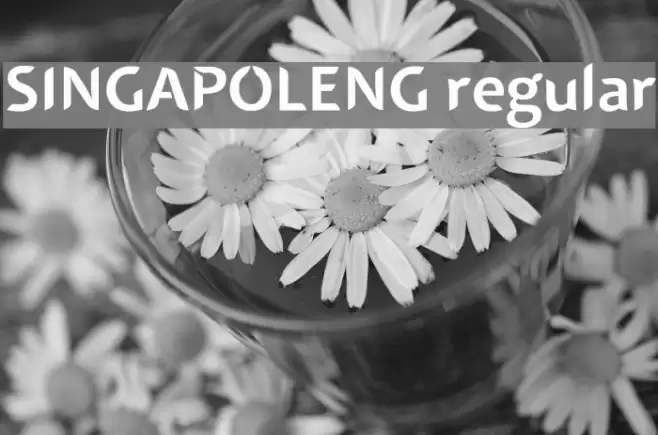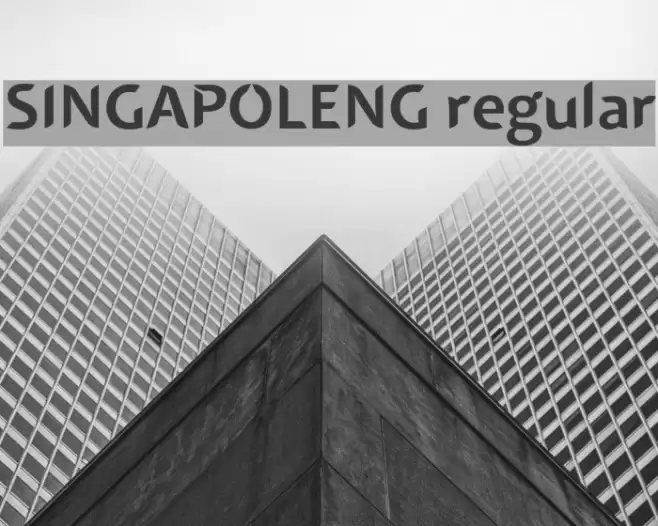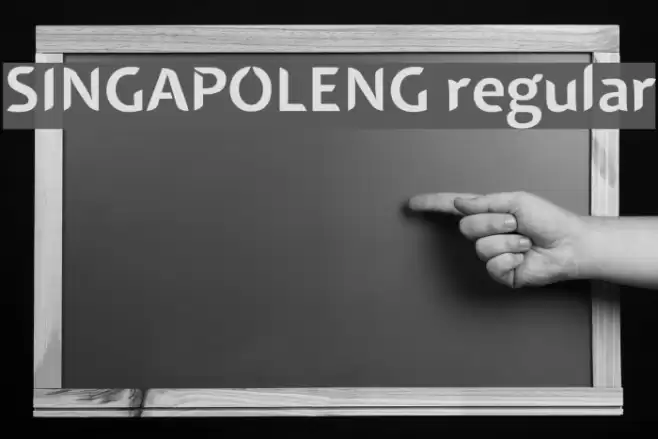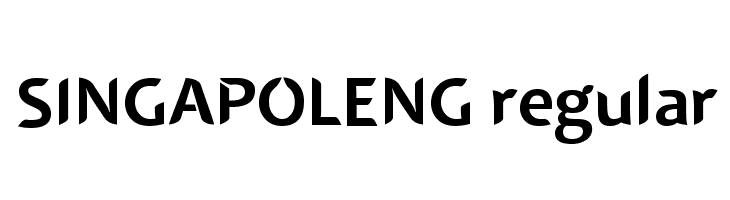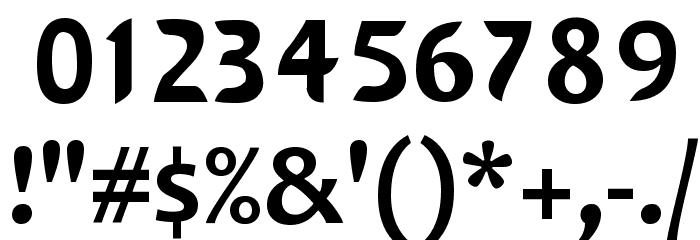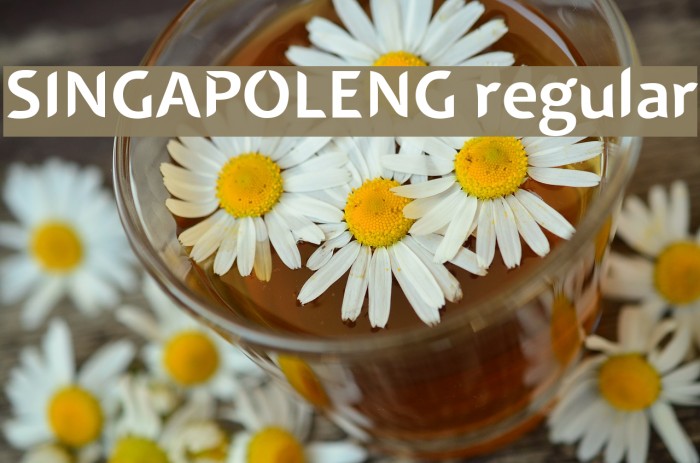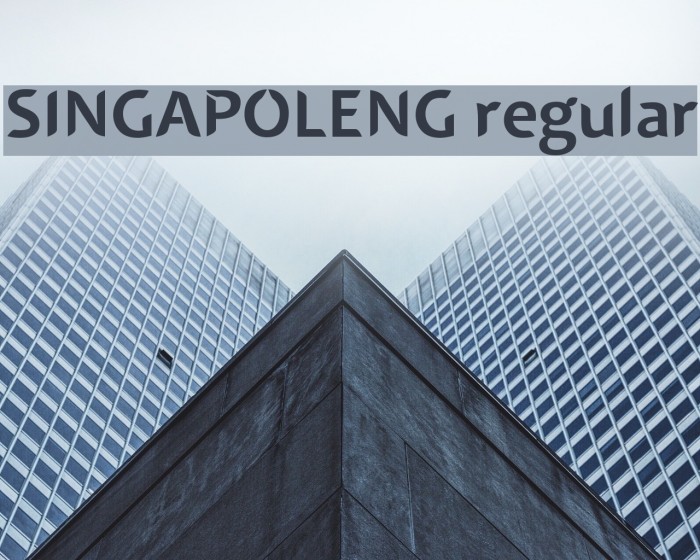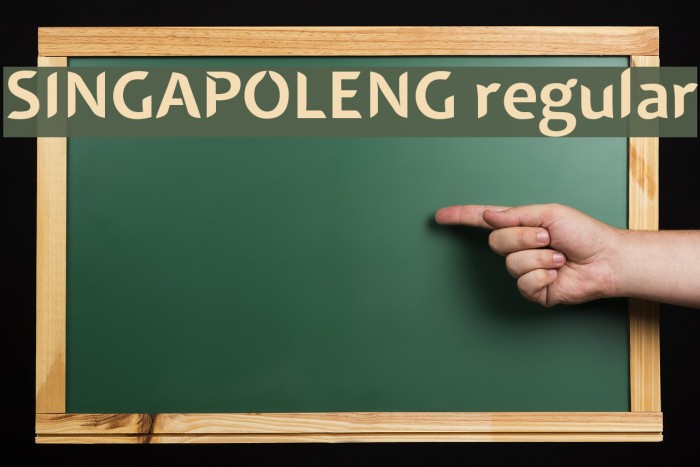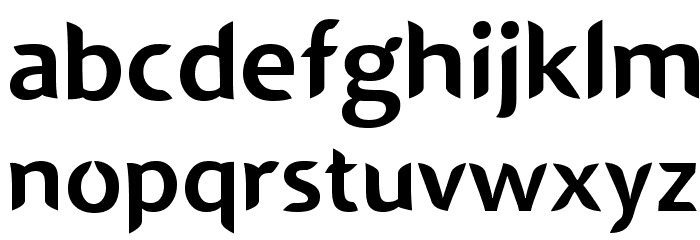
SINGAPOLENG regular Font
SINGAPOLENG regular Description
This font features a bold and dynamic style with a modern flair. The characters are slightly condensed, giving it a compact appearance while maintaining readability. The uppercase letters have a strong presence with sharp angles and clean lines, while the lowercase letters offer a softer, more rounded look. The numerals are consistent with the overall style, providing a cohesive appearance. Special characters are well-integrated, ensuring versatility in various design contexts. The font's high contrast between thick and thin strokes adds to its visual impact, making it suitable for attention-grabbing headlines and titles.
A bold, modern font with high contrast and a slightly condensed style from Uncategorized fonts.
- Proposed Projects: Ideal for branding, advertising, and editorial design projects where a strong, modern presence is required.